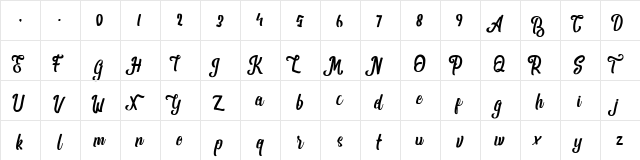
Shanthans Regular
Design Context for Shanthans Typeface
Shanthans is a composed and adaptable typeface that performs quietly and consistently across a wide range of design contexts.
Pro Tip: Pair Shanthans with a font of contrasting weight or personality to build a more expressive typographic hierarchy.